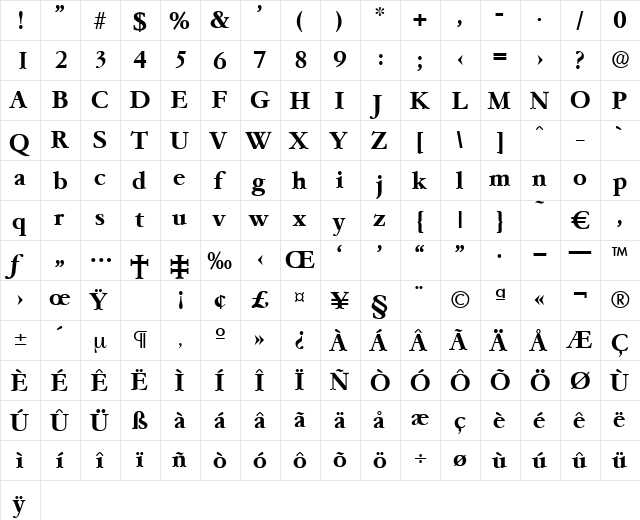
Garemond-DemiBold Regular Font Preview
Garemond-DemiBold Regular
Design Context for Garemond-DemiBold Typeface
Garemond-DemiBold offers clean, dependable letterforms without strong stylistic allegiance, making it a practical choice for designers who need flexibility. Its bold stroke weight gives it real presence on the page.